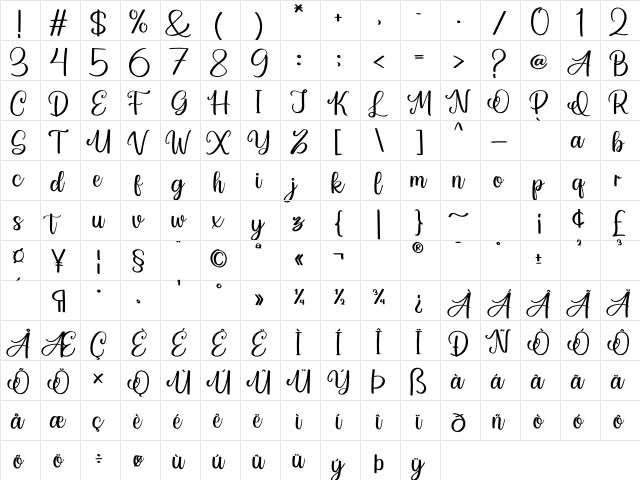
Kathiya Demo Regular
| Foundry | EmbunStudio |
| Designer | Aditya Rezki Apriyadi |
Design Context for Kathiya Demo Typeface
Kathiya Demo takes a measured approach to typography — its balanced proportions and neutral character make it a reliable workhorse for both digital and print work.